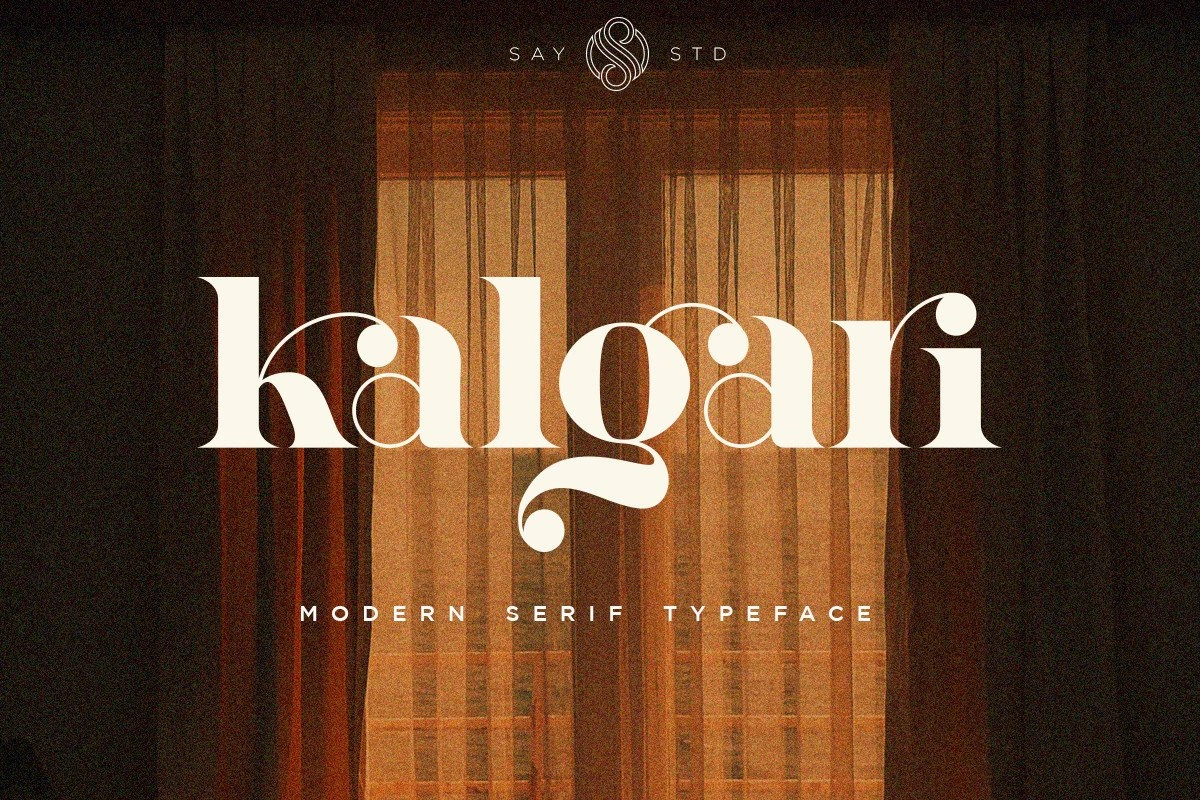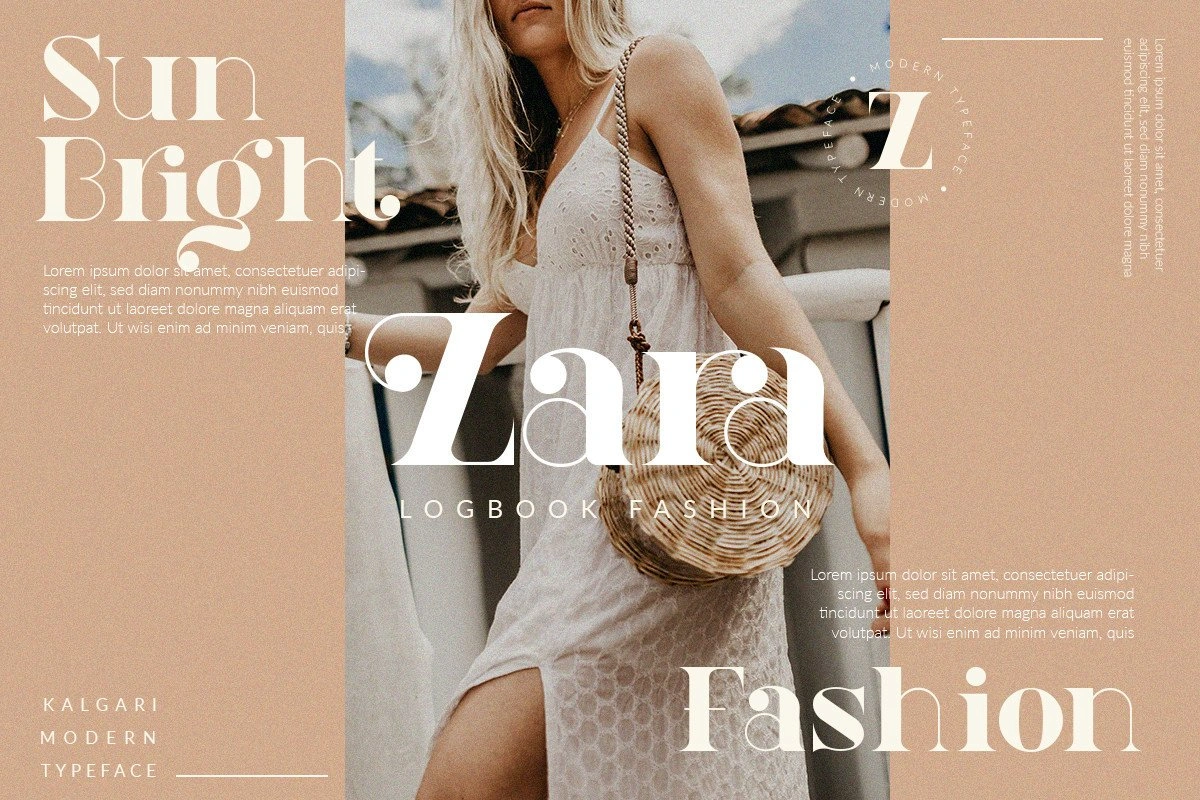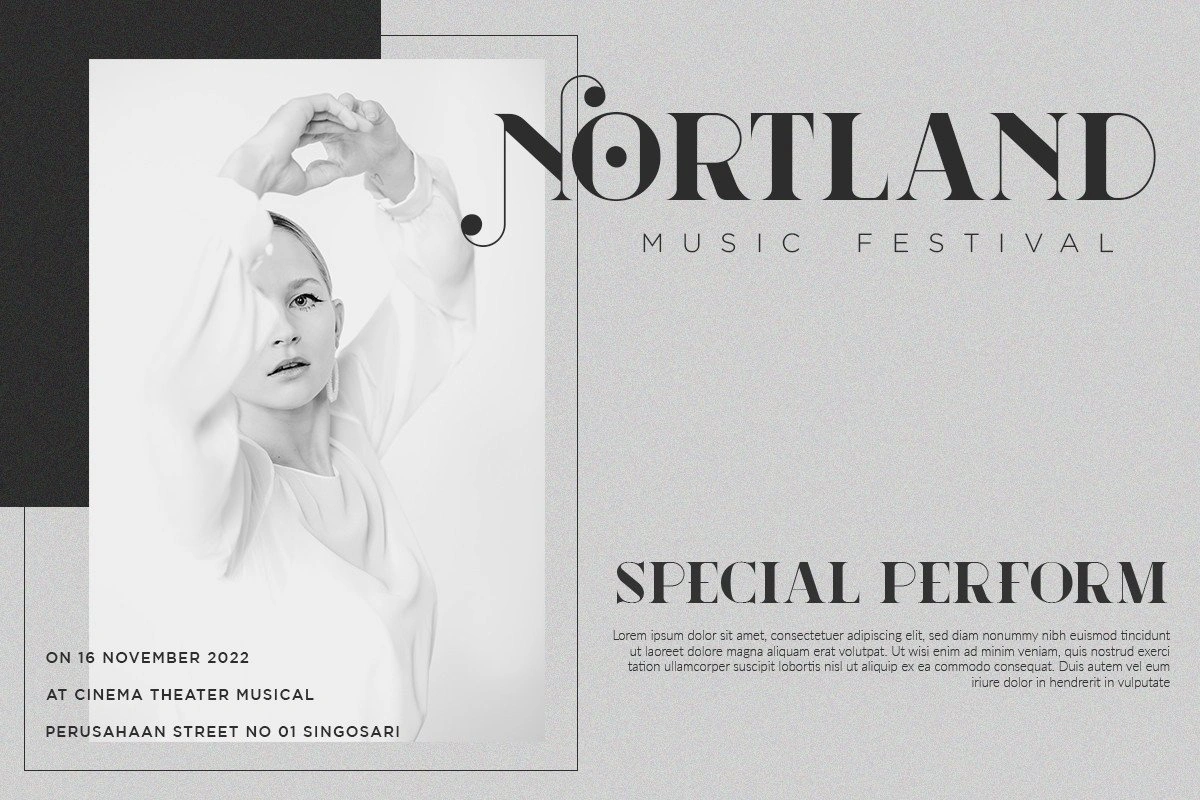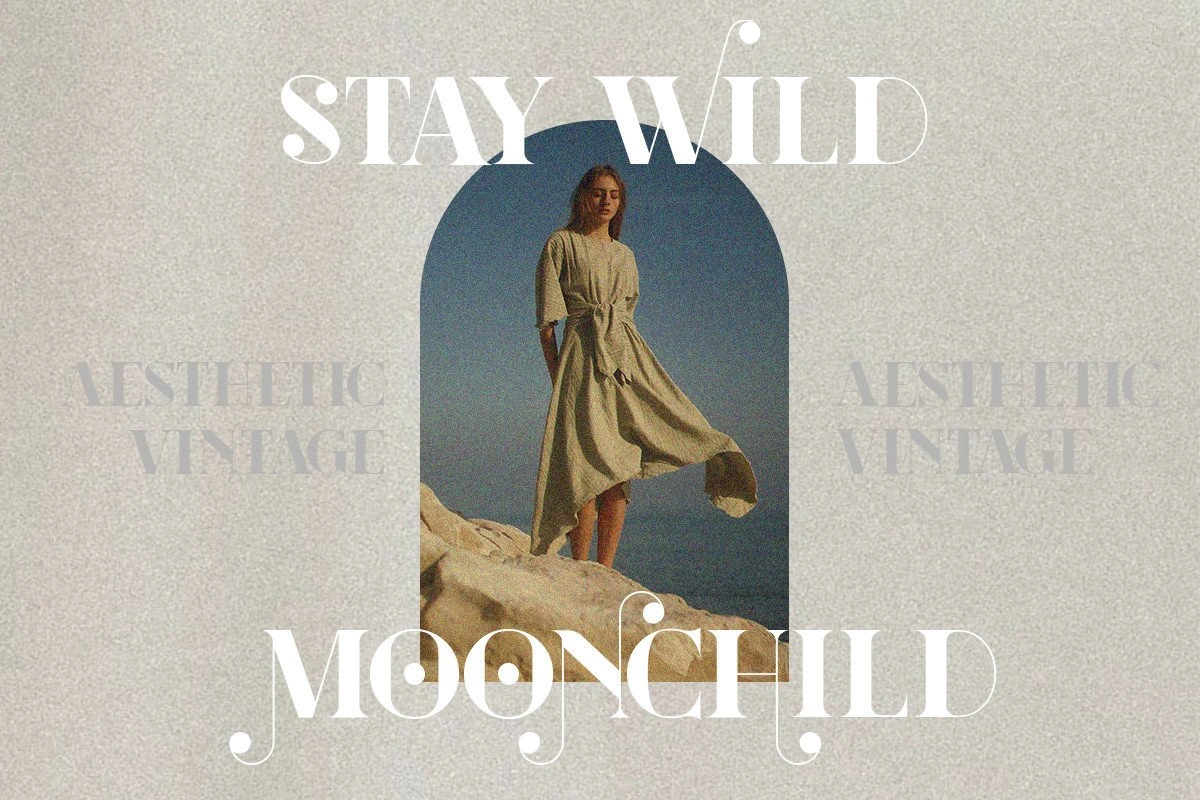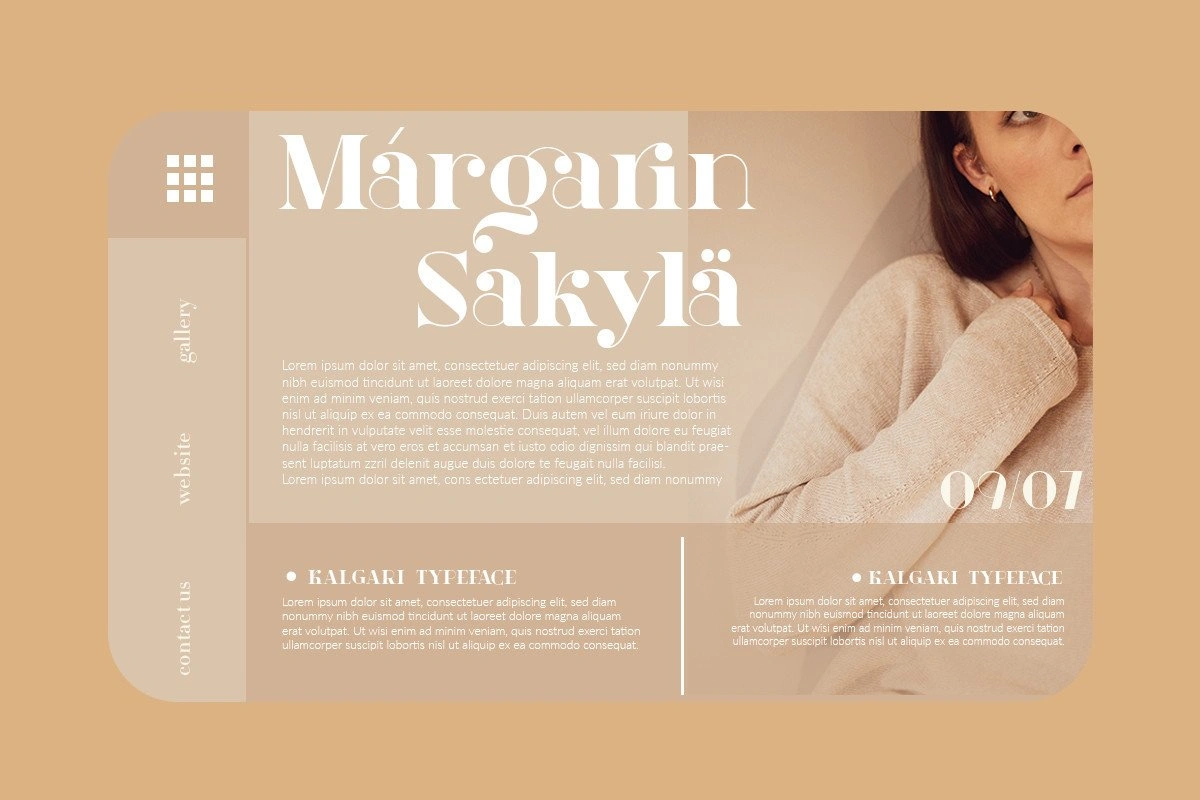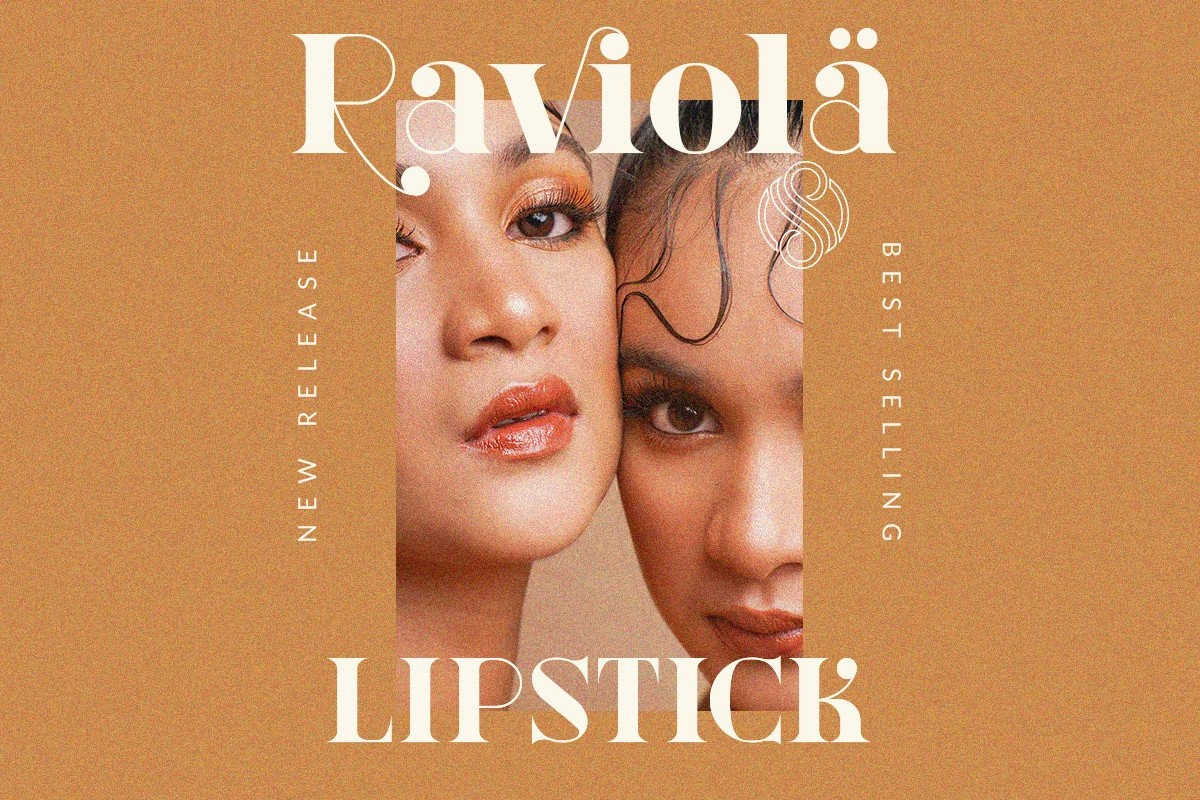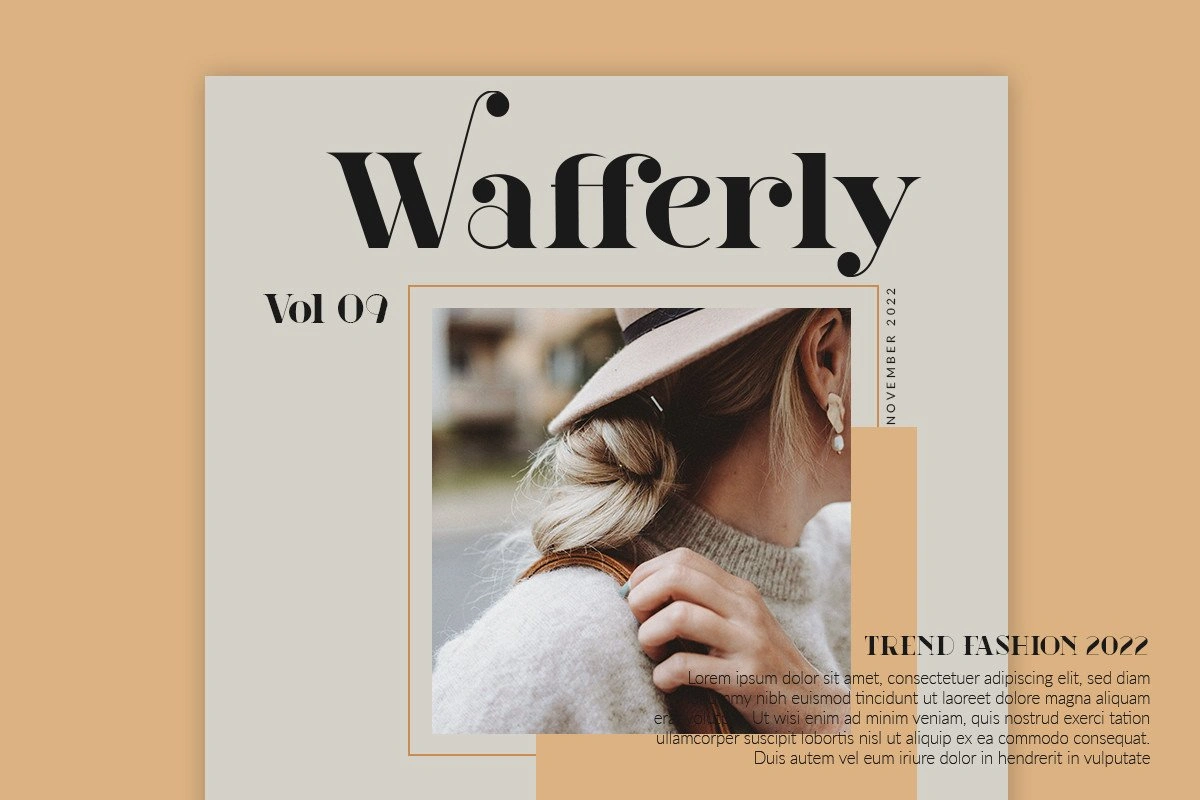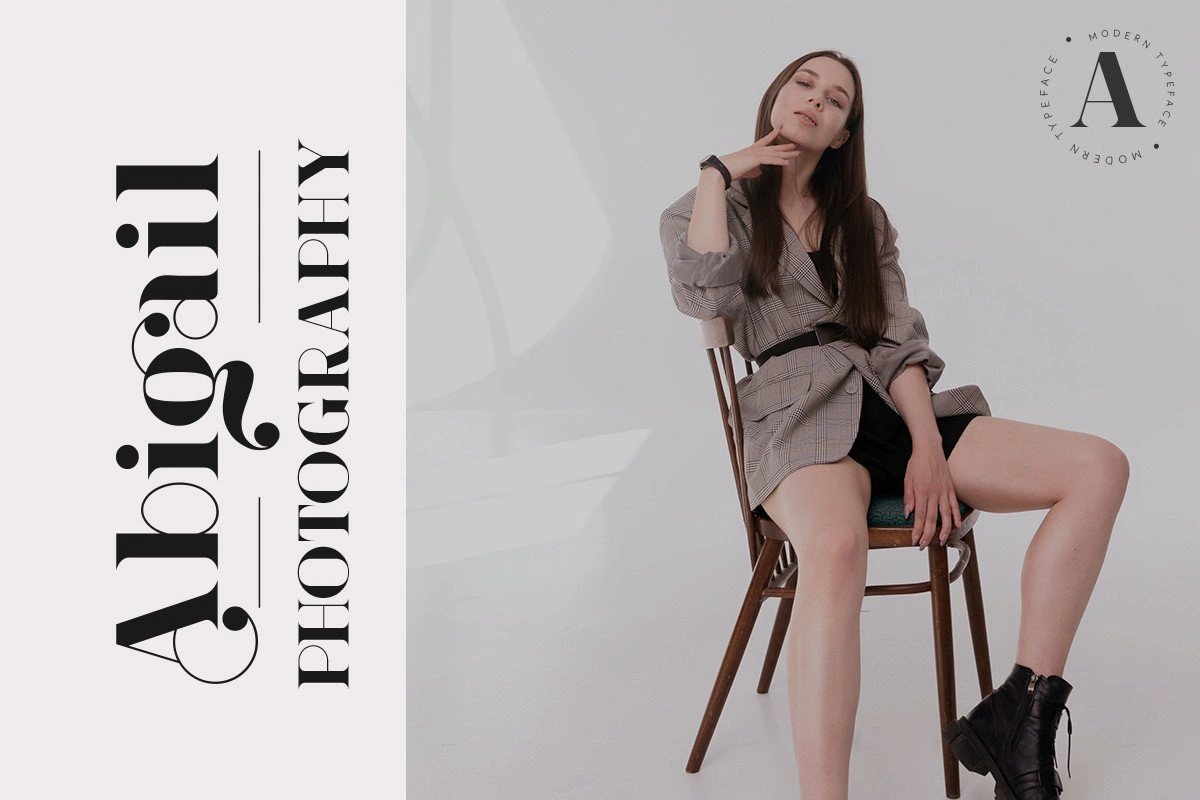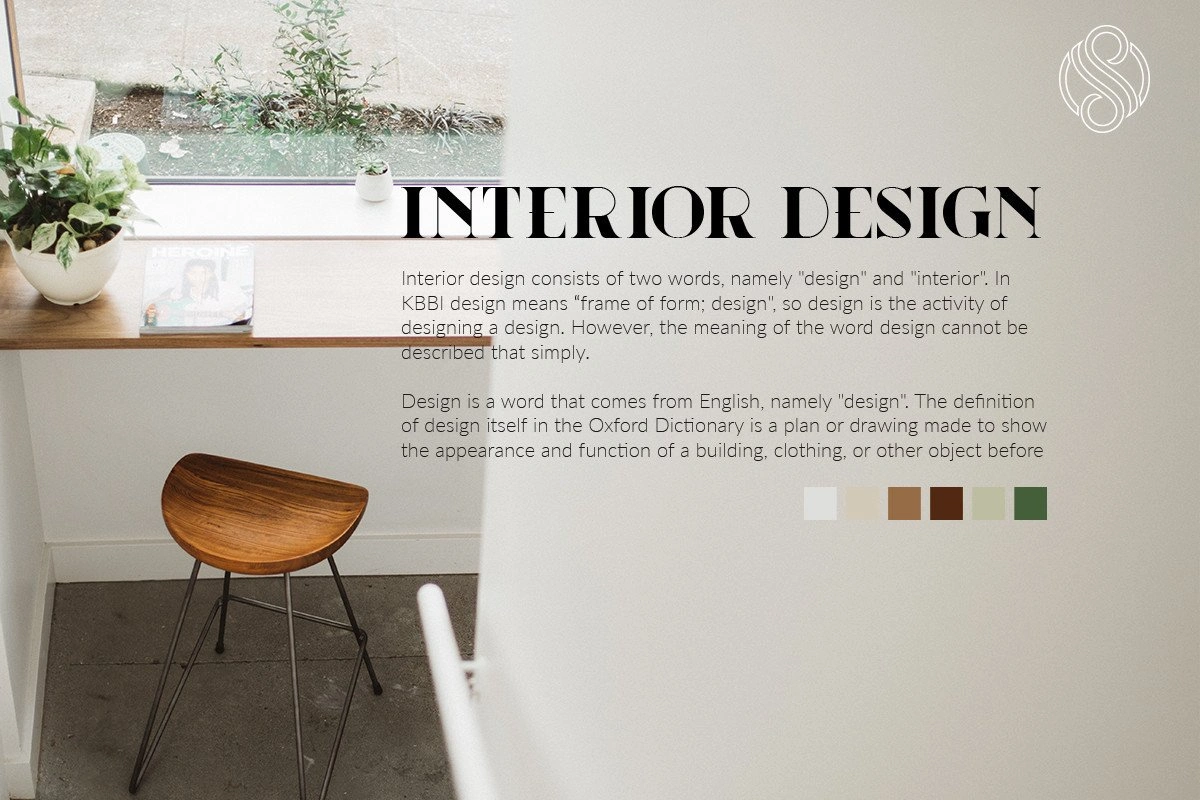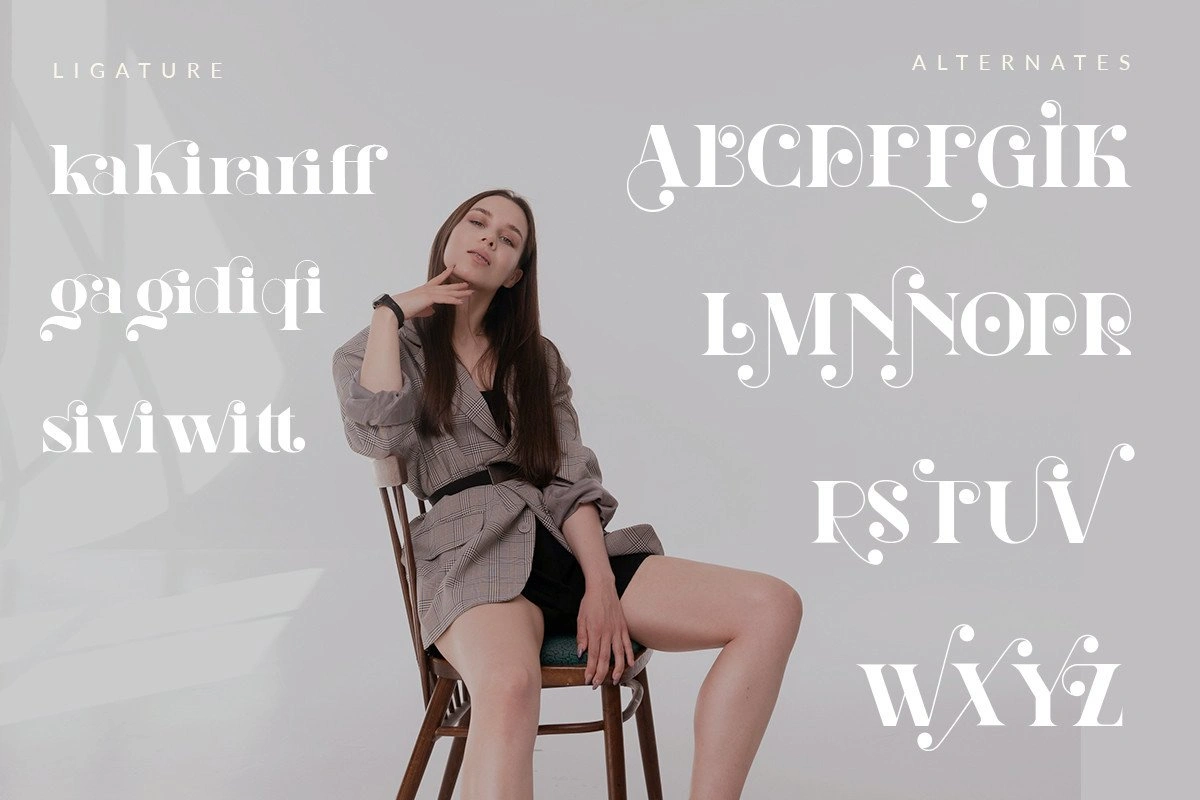
Kalgari – Serif Font
Kalgari modern serif font is unique as it can be used for a variety of design styles. It fits in wonderfully for free-spirited, boho designs and also for more classy editorial looks! .Perfect for branding projects, Logo design, Clothing Branding, product packaging, magazine headers, or simply as a stylish text overlay to any background image.
Features:
- Lowercase and Uppercase
- Stylistic Alternates & Ligatures
- Numerals & Punctuation
- Accented characters
- Multiple Languages Supported